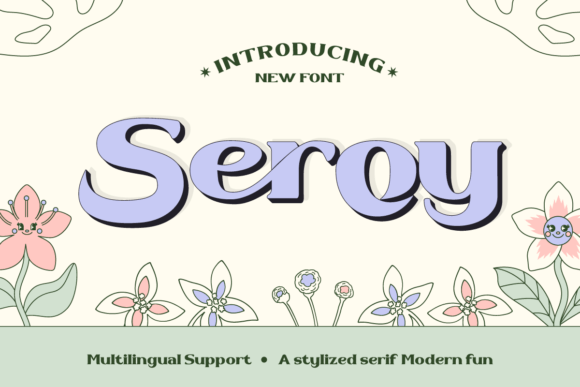
Prepare to unveil the exquisite beauty of Seroy Font, a masterpiece that captivates and enchants. Adorned with an aura of elegance and sophistication, this font oozes charisma and leaves an everlasting impression on all who lay their eyes upon it. Each glyph is meticulously crafted to exude grace and charm, creating a visual symphony that dances effortlessly across the page. Enter a realm of creativity and artistry as you unleash the boundless potential of Seroy Font.
Immerse your designs in a sea of refinement with Seroy Font. Its serif embellishments evoke timeless sophistication, while maintaining a hint of modernity that keeps your work feeling fresh and contemporary. Whether you're a seasoned designer or just starting out, Seroy Font is the perfect tool to elevate your projects to the next level. Its versatility allows you to explore countless creative avenues, from logos and branding to invitations, posters, and social media graphics.
With Seroy Font at your disposal, you'll unlock a world of design possibilities. Let your imagination run wild as you craft logos that radiate authority and elegance, business cards that exude professionalism, or simply heartfelt personal notes that speak volumes. The possibilities are endless, bounded only by the limits of your imagination.
Seroy Font excels in the realm of display advertising, capturing attention and leaving a lasting impact on your target audience. Its ability to convey a message concisely yet memorably makes it the perfect choice for billboards, banners, and any other form of display advertising. Imagine your message leaping off the screen, mesmerizing viewers with its clarity and eloquence.
In the realm of merchandise, Seroy Font reigns supreme. T-shirts, mugs, tote bags – you name it, and Seroy Font enhances it. Its timeless appeal resonates with customers, leaving them eager to possess items adorned with your inspired designs. Transform ordinary objects into covetable collectibles with the magic of Seroy Font.